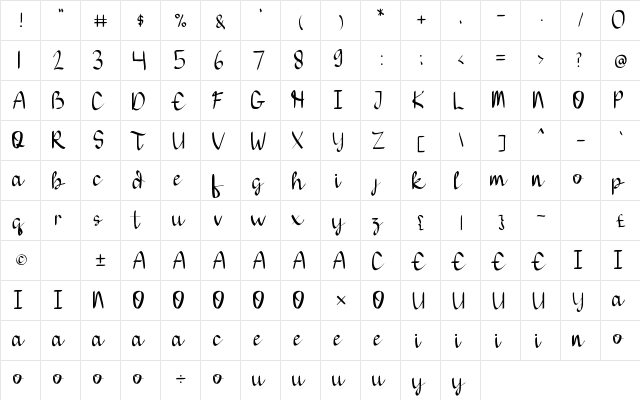
THIAGA Script Regular
| Foundry | Edric Studio |
| Designer | Aghnia |
Design Context for THIAGA Script Typeface
THIAGA Script brings a calligraphic fluidity to the page — its connecting strokes and expressive curves give it an unmistakably human quality.